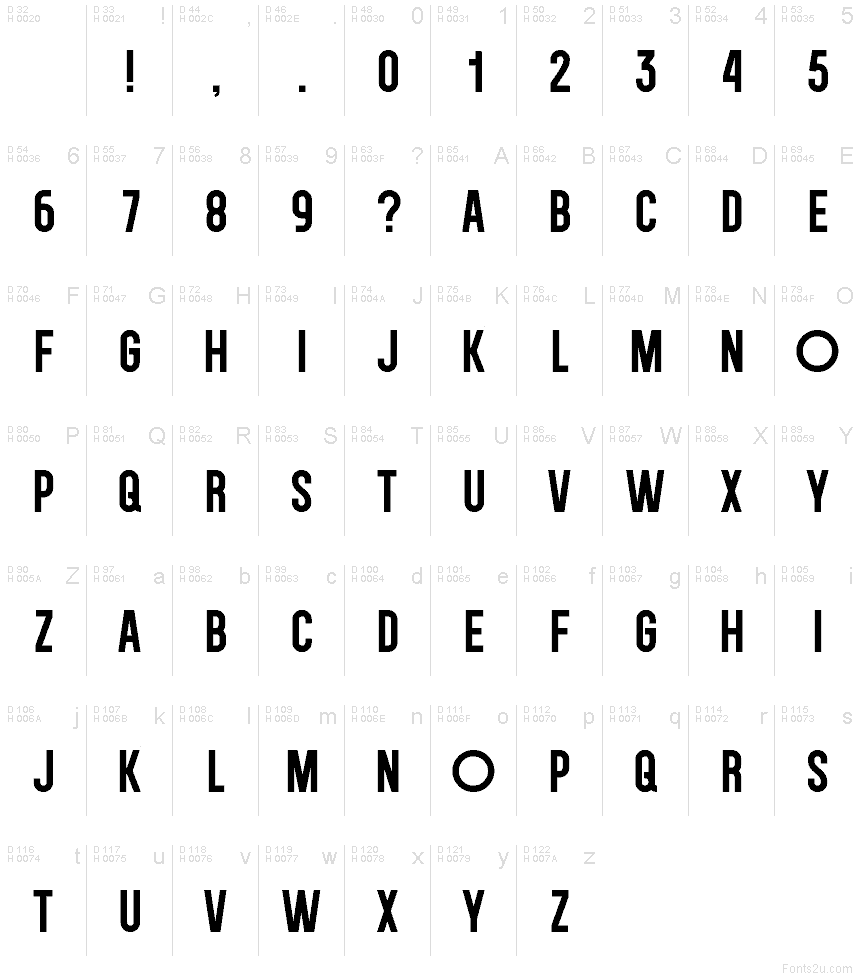
THE POSTER FONT DEMO
The Poster Font by Sven Pels is a sans serif font with a condensed design. Its uniform and compact appearance shows structured geometric shapes that form the basis of all its letters. It’s worth noting that its solid build helps deliver modern aesthetics even when used in smaller sizes.
The free font suits posters (as suggested by its name), branding designs, banners, book covers, comics or magazine titles, logos or logotypes, badges, body texts on websites and mobile displays, reports, point of sale systems (POS) view texts among other contexts. Use it for both print and digital projects to take advantage of its legibility in various sizes.